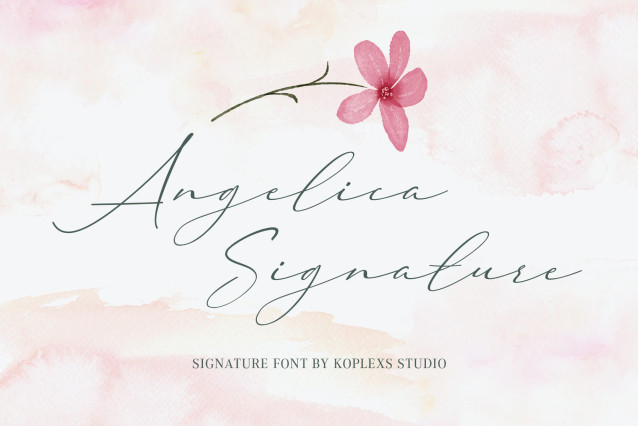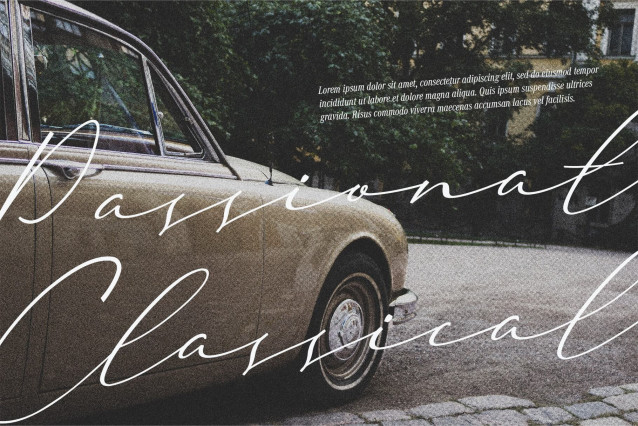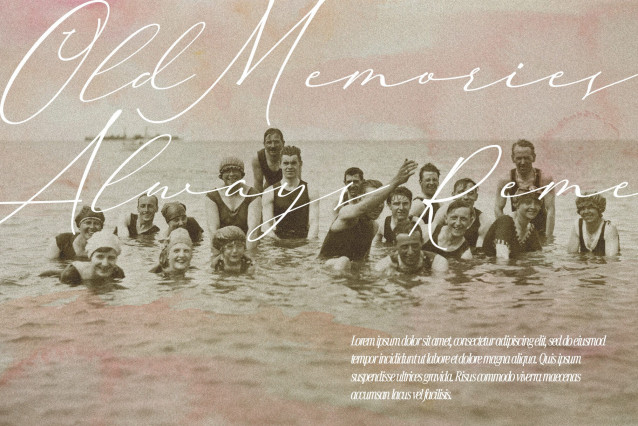
Angelica Signature Font
Angelica Signature Font is a modern script font with an elegant handwritten style. Perfect as a signature font, wedding font, branding font, calligraphy font, cosmetic font, logo font, luxury font, and aesthetic font, it brings timeless sophistication to any project. Ideal for wedding invitations, logos, fashion packaging, beauty products, social media, blogs, and personal branding, this elegant font combines modern calligraphy and classic charm. A perfect choice for designers looking for a stylish and versatile modern font.